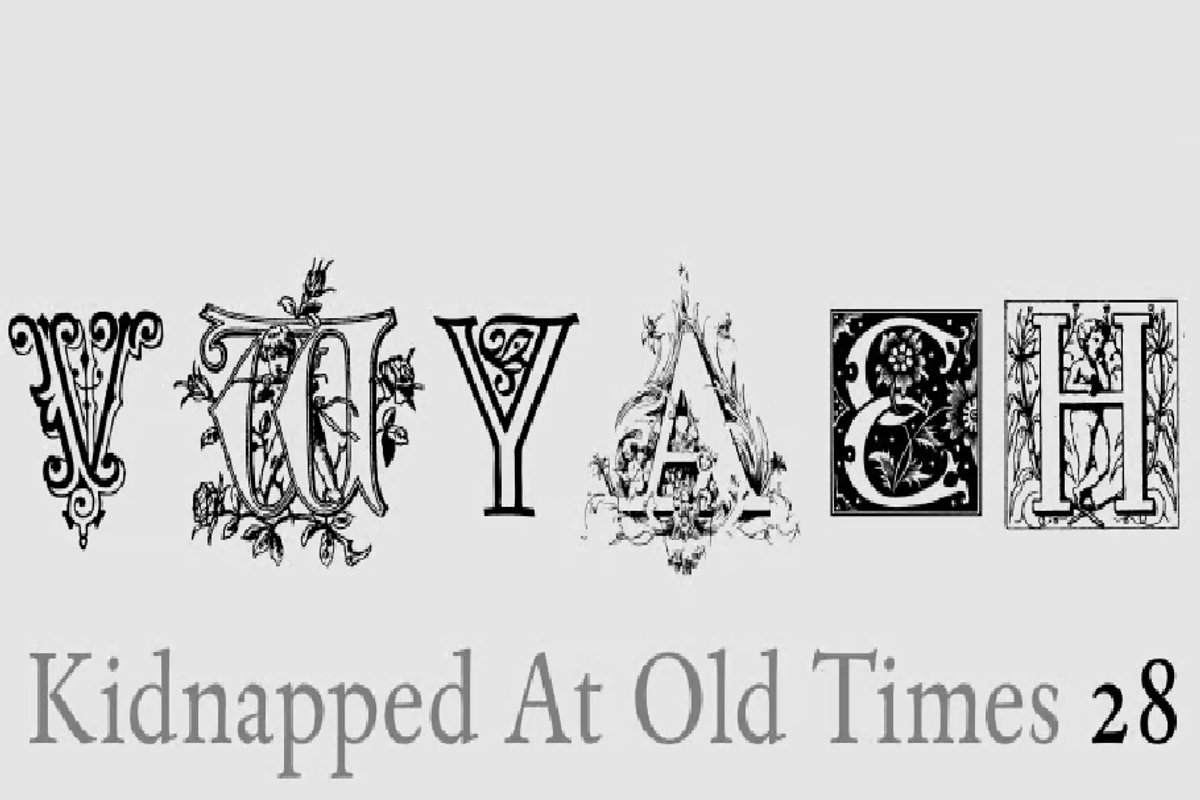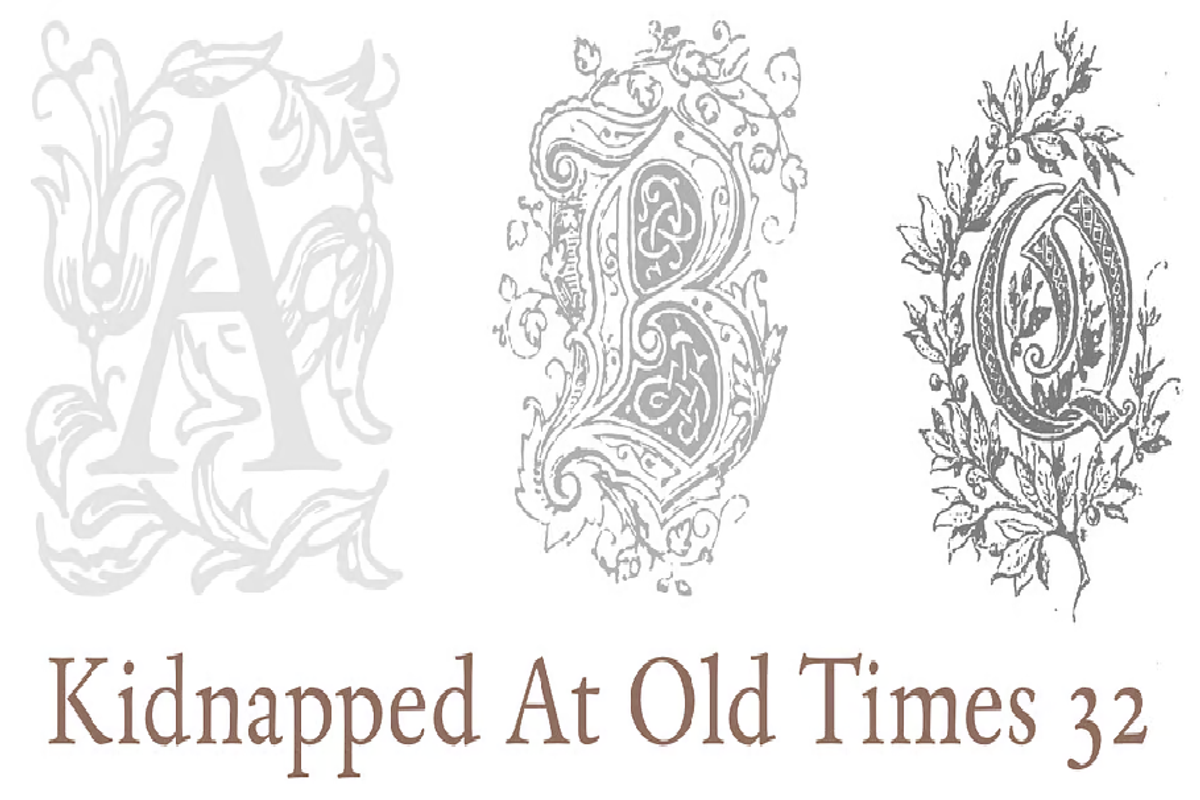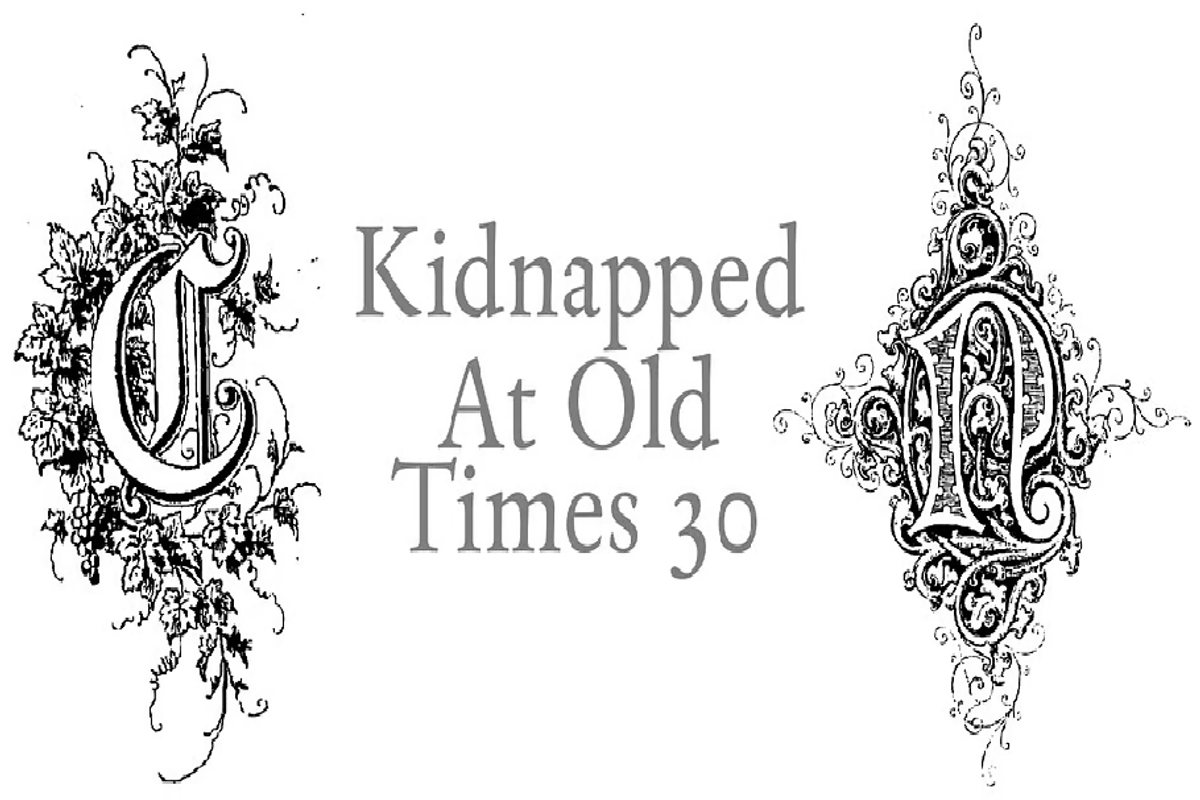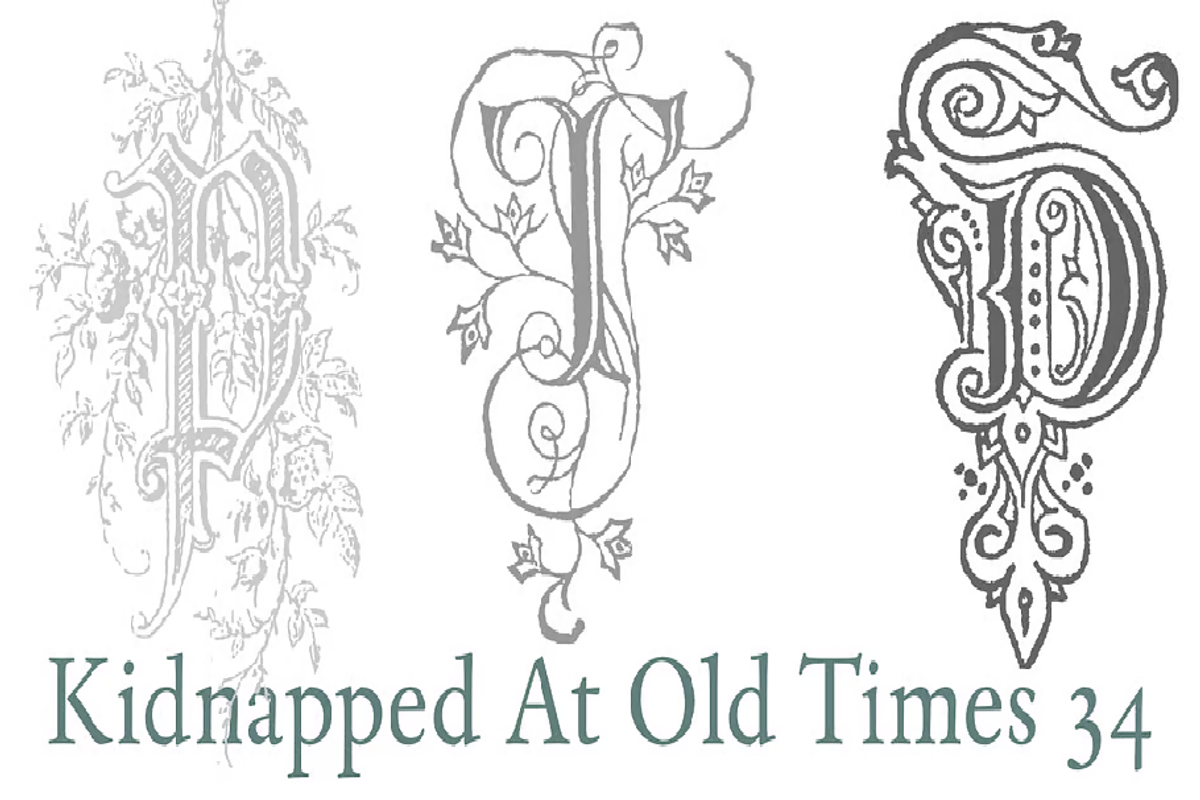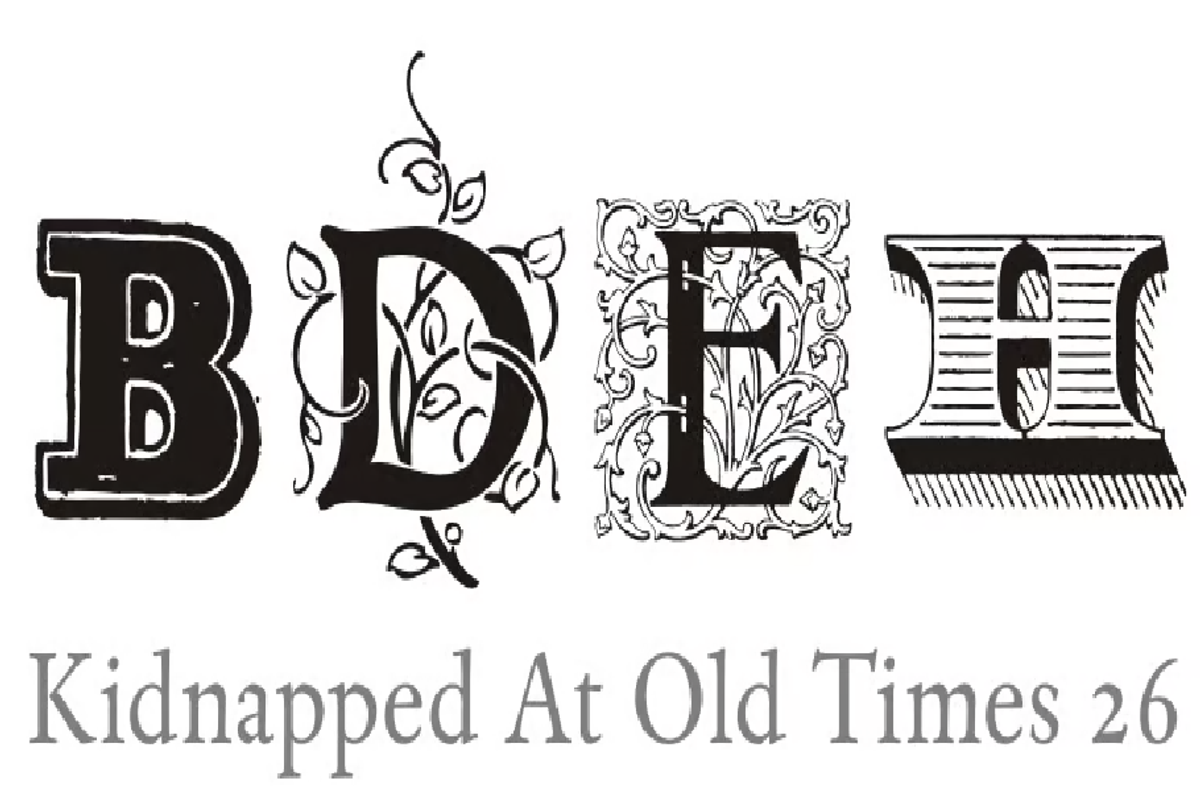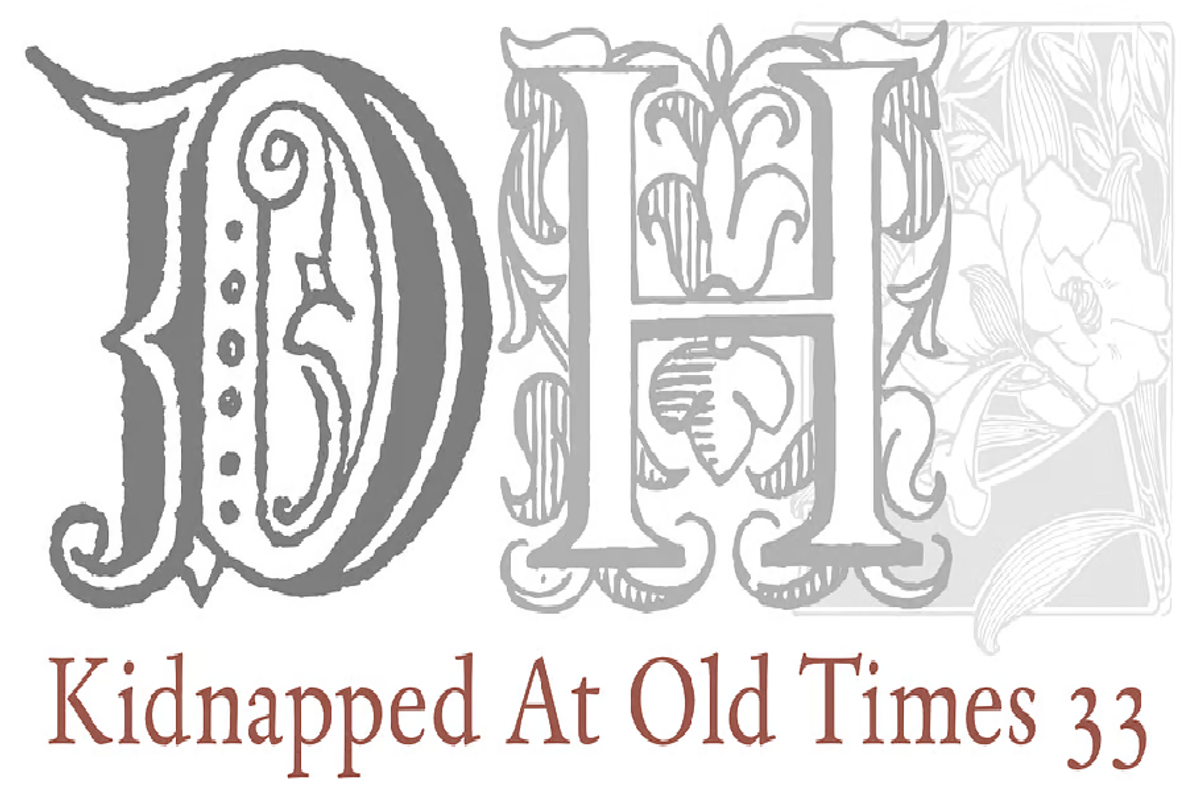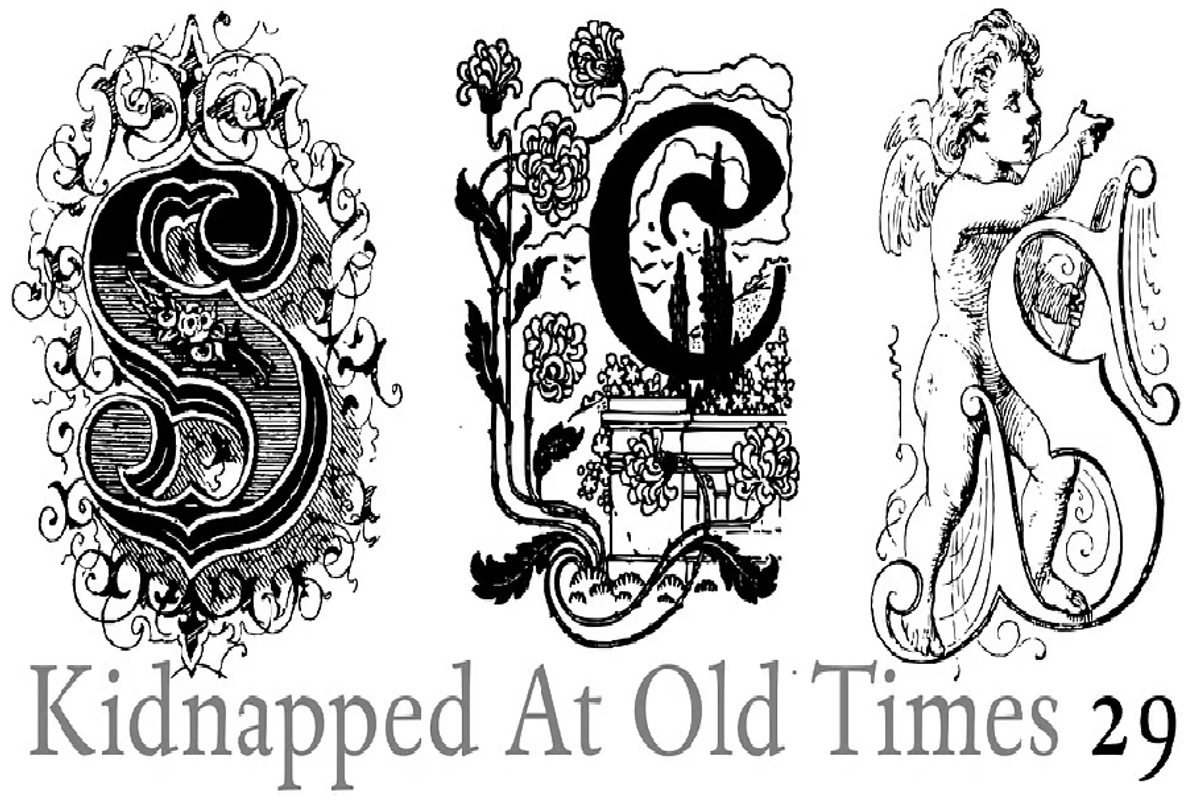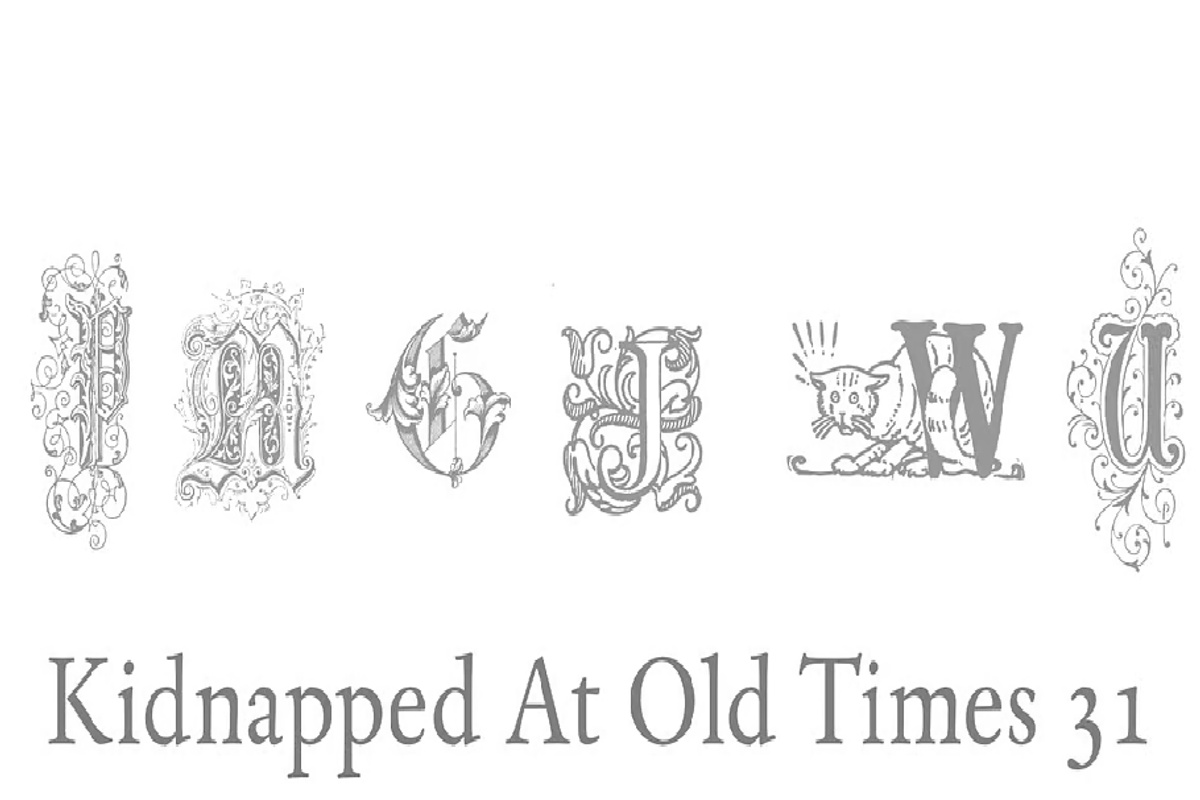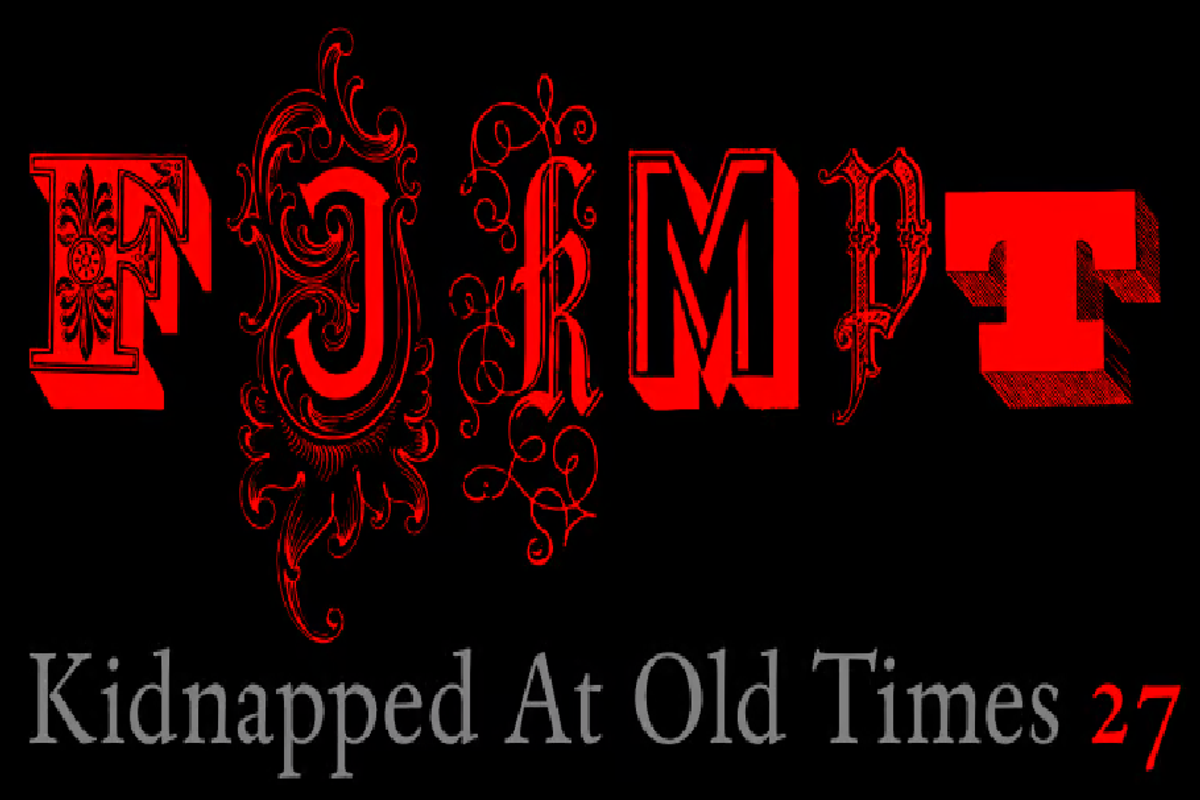
Kidnapped at Old Times SUPER PACK 43
Kidnapped at Old Times, by Intellecta Design, is a collection of 43 fonts (and growing) of some of the most decorative caps we have ever carried.
Decorative caps can capture the attention of anyone when used well. These caps are remarkably interesting and very detailed. So many to choose from - the entire family has over 2600 exotic, intricate and historical letters.